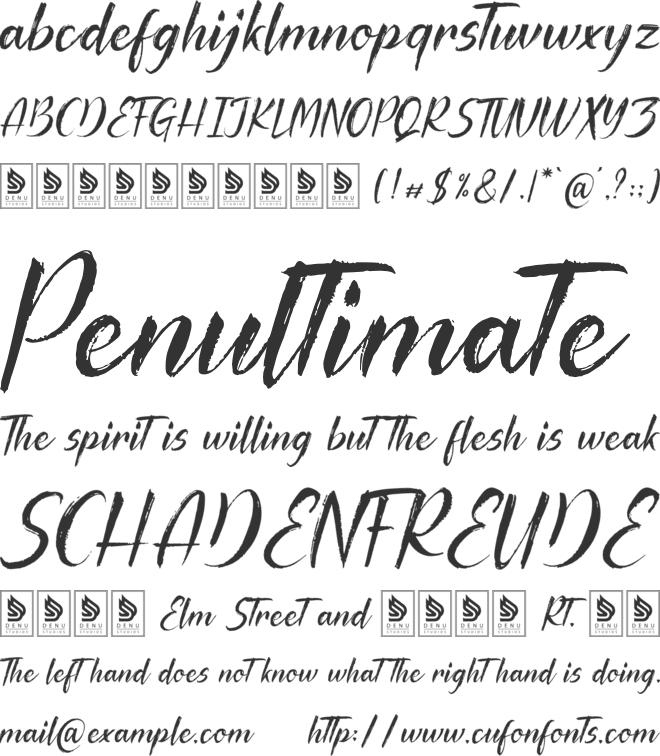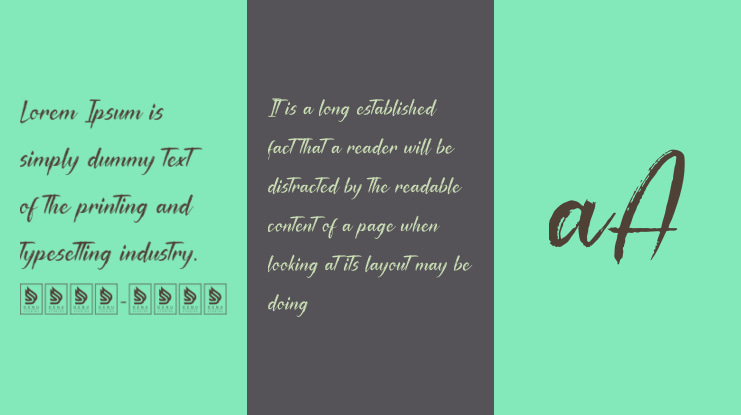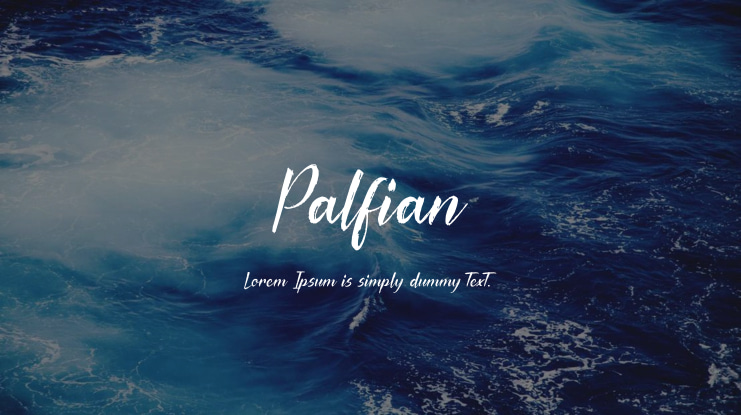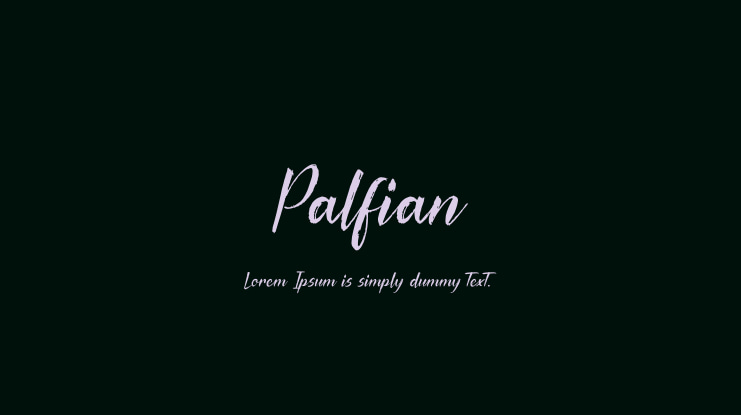
Palfian Font
Palfian | Brush Solid Script is suitable for any projects such as:
• Logos
• Branding projects
• Homeware designs
• Product packaging
• Mugs
• Quotes
• Posters
• Shopping bags
• T-shirts
• Book covers
• Name cards
• Invitation cards
• Greeting cards
• Labels
• Photography
• Watermarks
• Special events
• All your other lovely projects that need a Brush Solid Script taste
Palfian font preview